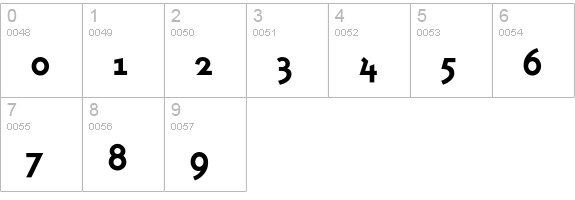
Instanter-Bold Font Details
Instanter-Bold is a strong, high-contrast variant in the Instanter typeface family \xE2\x80\x94 well suited to headlines, attention-grabbing titles, and strong calls-to-action.
Instanter-Bold is a striking and powerful font that demands attention with its bold and commanding presence. Its distinct and contemporary design is perfect for making a bold statement in any project. The strong and confident letterforms exude a sense of reliability and professionalism, making it ideal for various design applications, including logos, headlines, posters, and more. What sets Instanter-Bold apart is its versatility. It effortlessly blends a modern aesthetic with a timeless appeal, making it suitable for both digital and print media. Whether used in web design or in printed materials, this font will captivate and engage viewers with its clean lines and strong visual impact. Not only does Instanter-Bold have an impressive design, but it is also free to download at FontsMarket.com. This means that designers and creatives can easily access this remarkable font without any financial burden. Being freely available ensures that everyone has the opportunity to enhance their projects with the elegance and power of Instanter-Bold. So, why wait? Download Instanter-Bold today from FontsMarket.com and elevate your designs to new heights. Let this font become your go-to choice when you need to make a bold statement that leaves a lasting impression. With Instanter-Bold, your designs will stand out from the crowd and make a powerful impact, all while being freely accessible to all.